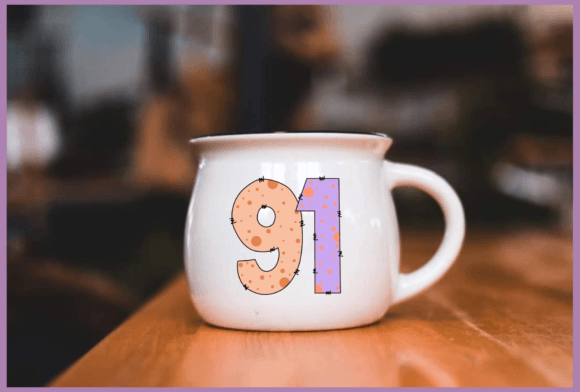
The Playful Charm of Buble Font: A Designer’s Delight
I still remember the time I was working on a children’s book project, and I just couldn’t find the right font to match the playful and whimsical tone of the story. The client wanted something that would appeal to kids and make the book feel friendly and approachable. That’s when I stumbled upon Buble Font, and it was love at first sight! 💕
Buble is a colorful and cheerful font that features tiny bubbles inside each character, giving it a unique and eye-catching charm. In this article, I’ll share my experience with Buble Font, its features, and how to make the most of it in your designs.
An Honest Review of Buble Font
What I Love About Buble Font ✨
- ✅ The playful and whimsical design makes it perfect for children’s books, greeting cards, and other projects where a fun and lighthearted atmosphere is desired.
- ✅ The tiny bubbles inside each character add a delightful touch of personality to the font.
- ✅ Buble Font is a color font, which means you can use it to add an extra pop of color to your designs.
- ✅ The font is highly versatile and can be used for a wide range of projects, from digital designs to print materials.
- ⚠️ Buble Font may not be the best choice for body text or long-form content, as its playful design may be distracting or hard to read in large quantities.
- ⚠️ Some of the bubbles may not align perfectly with certain characters, which can be a minor issue for perfectionists.
The Story Behind Buble Font
Buble Font was designed by a team of creatives who wanted to create a font that would bring a smile to people’s faces. Inspired by the joy of childhood and the playfulness of bubbles, they crafted a font that would add a touch of whimsy to any project. The design process involved experimenting with different shapes and colors to create a unique and eye-catching effect.
Q: What is Buble Font?
A: Buble Font is a playful and inviting color font that features tiny bubbles inside each character.
Q: Is Buble Font suitable for body text?
A: No, Buble Font is best used for headlines, titles, and short-form content. Its playful design may be distracting or hard to read in large quantities.